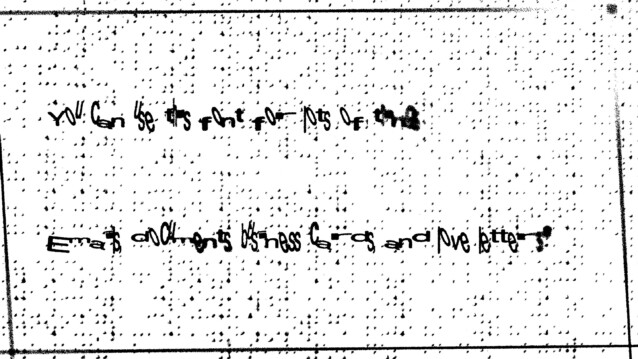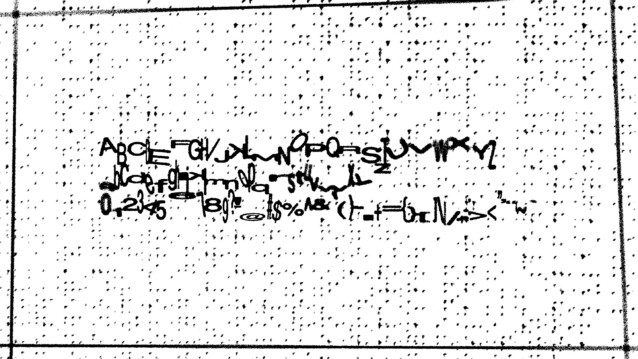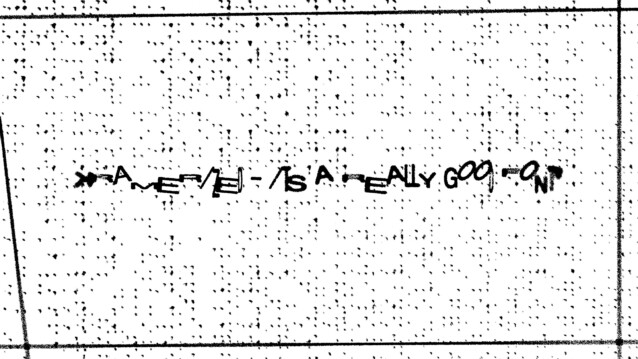
Kramerized Display Font
Kramerized Display Font. You can use this font for lots of things. Emails, documents, business cards, and love letters! 100% Free!